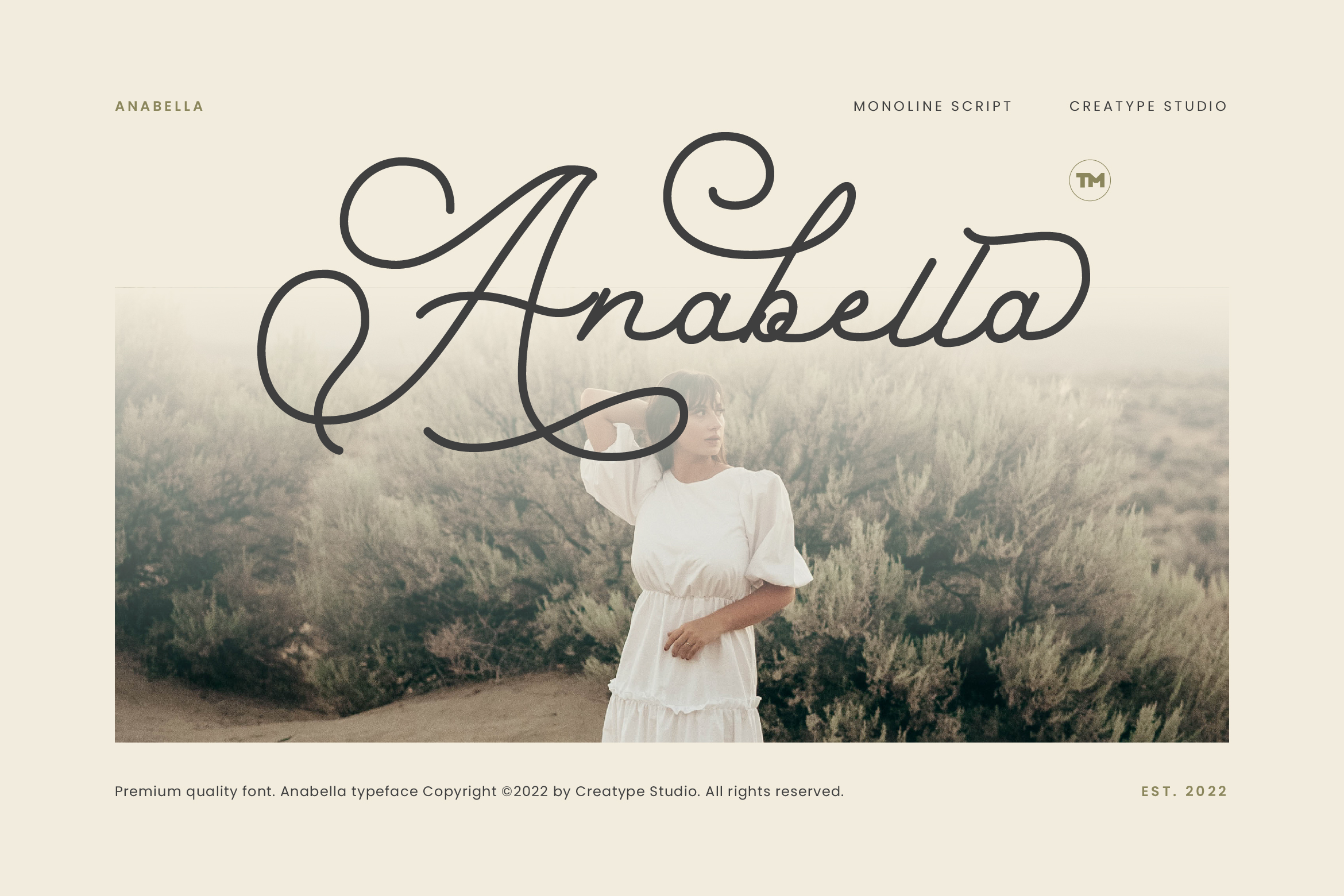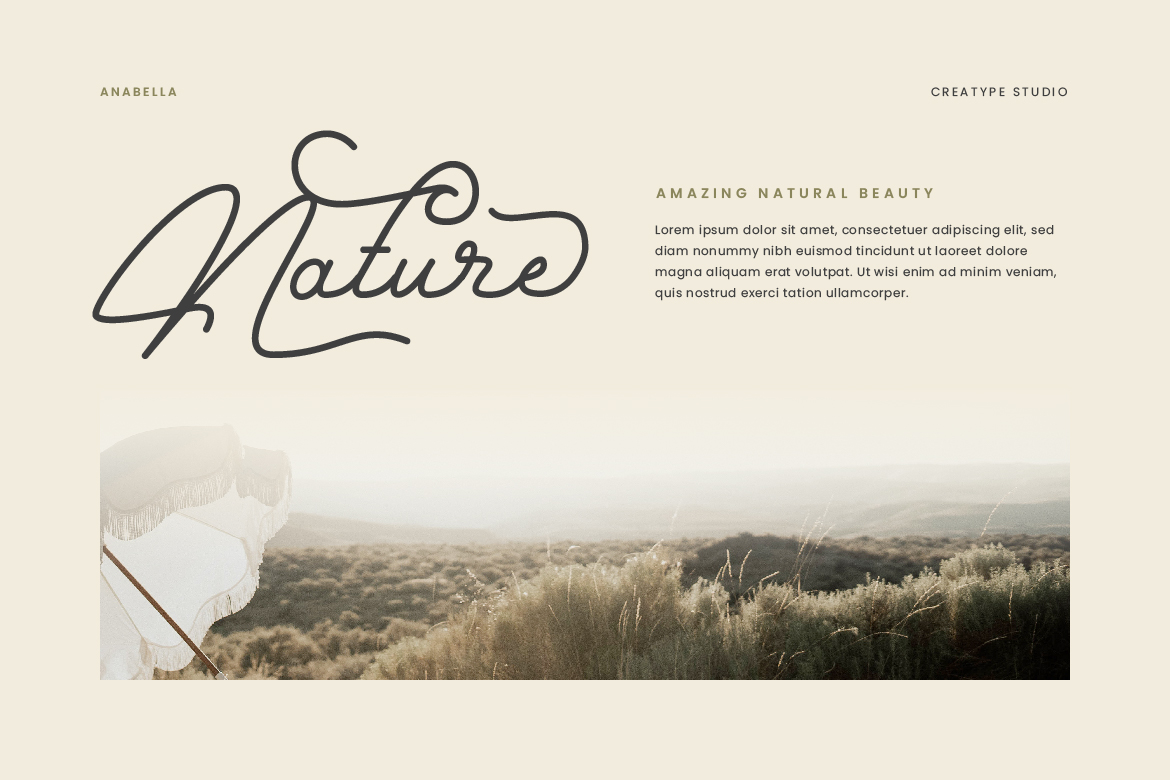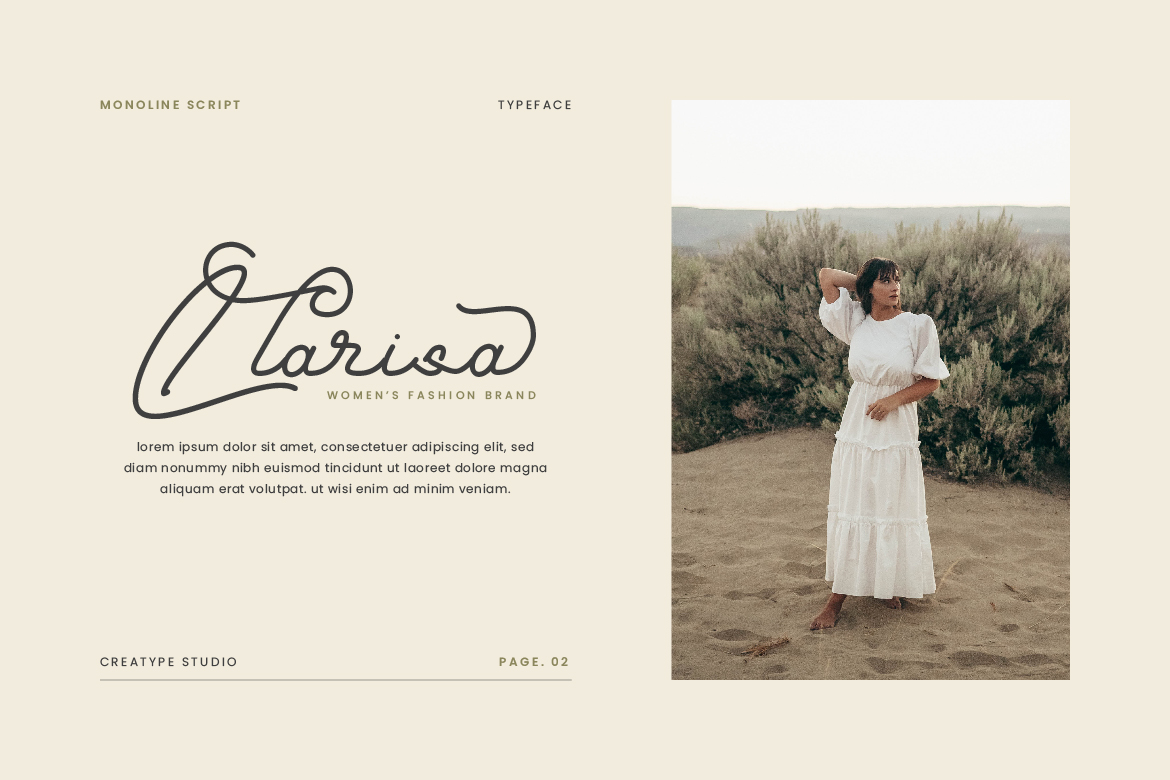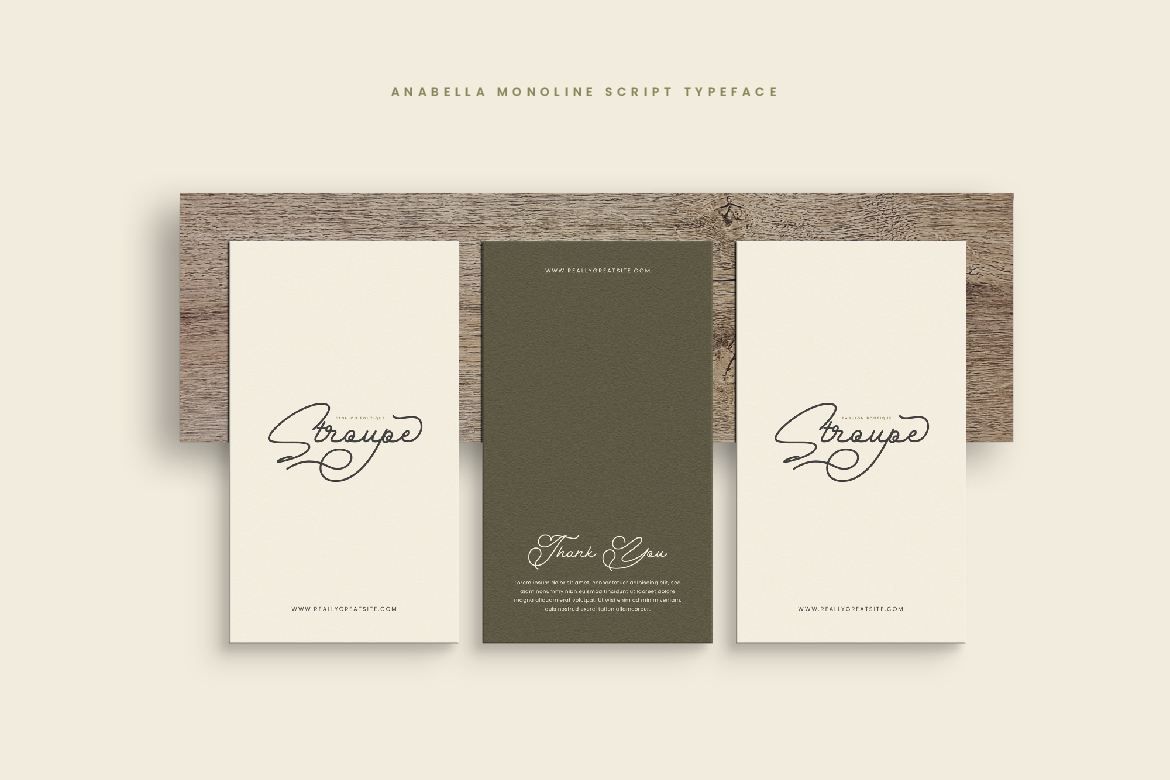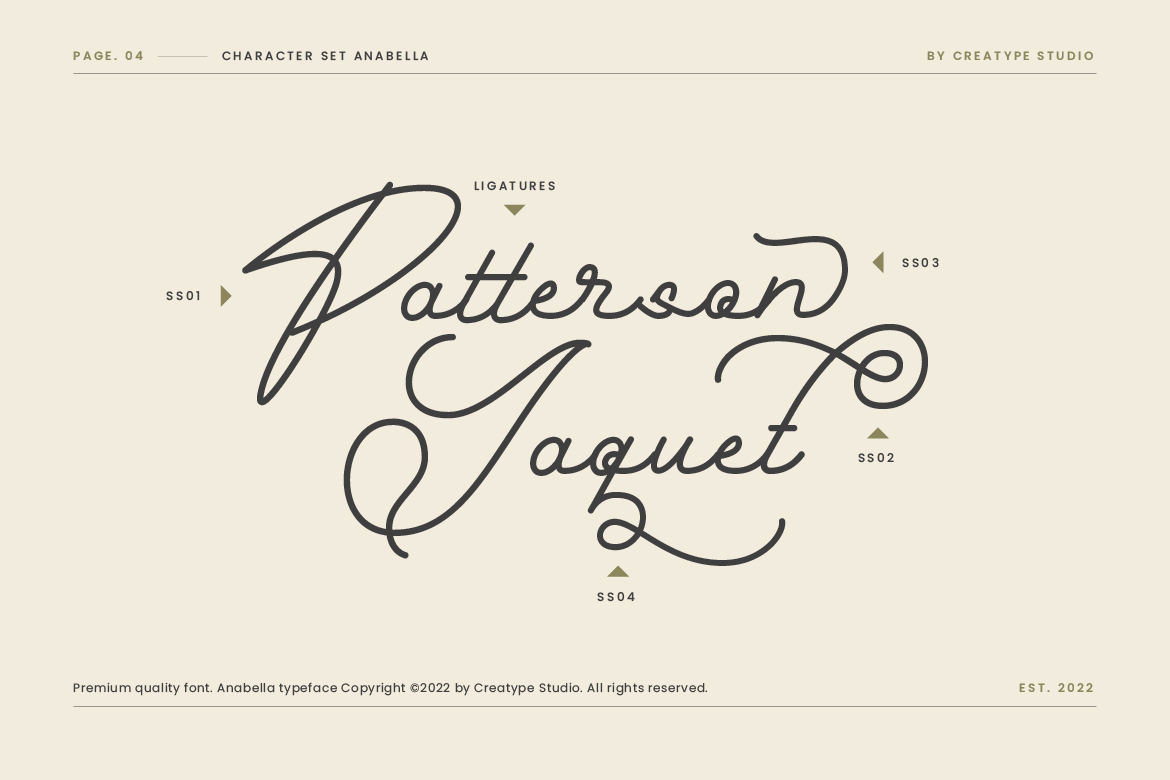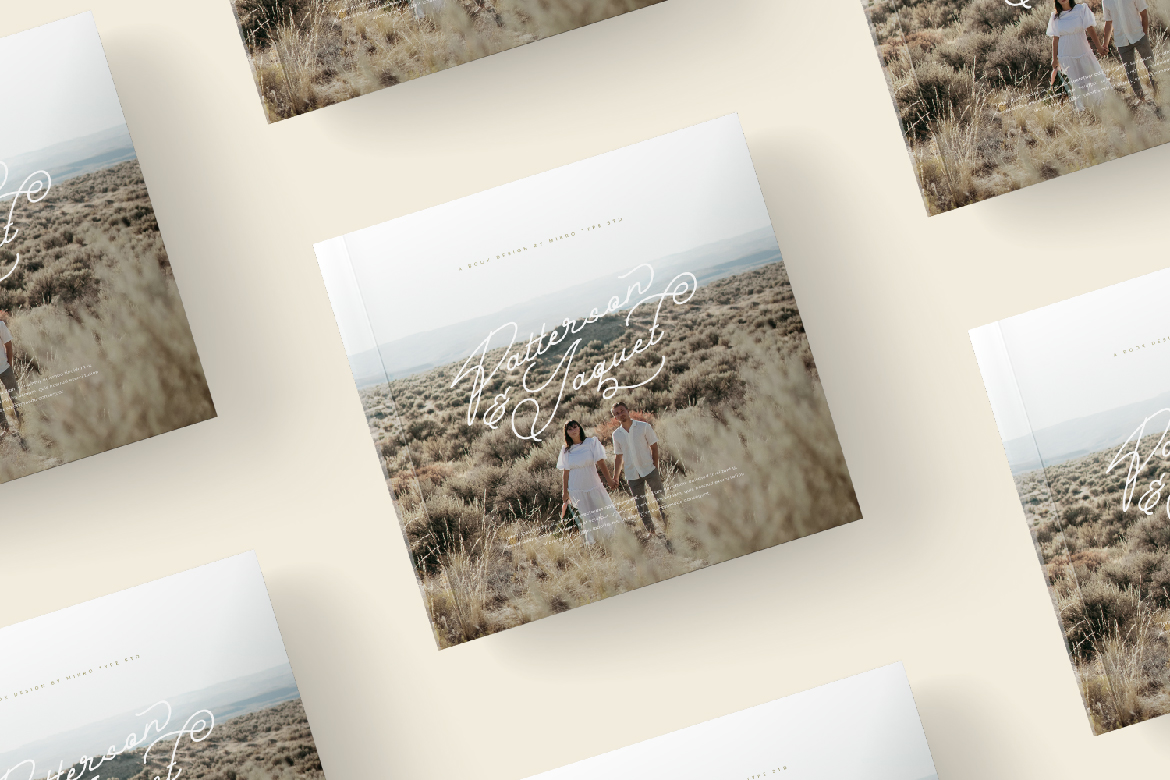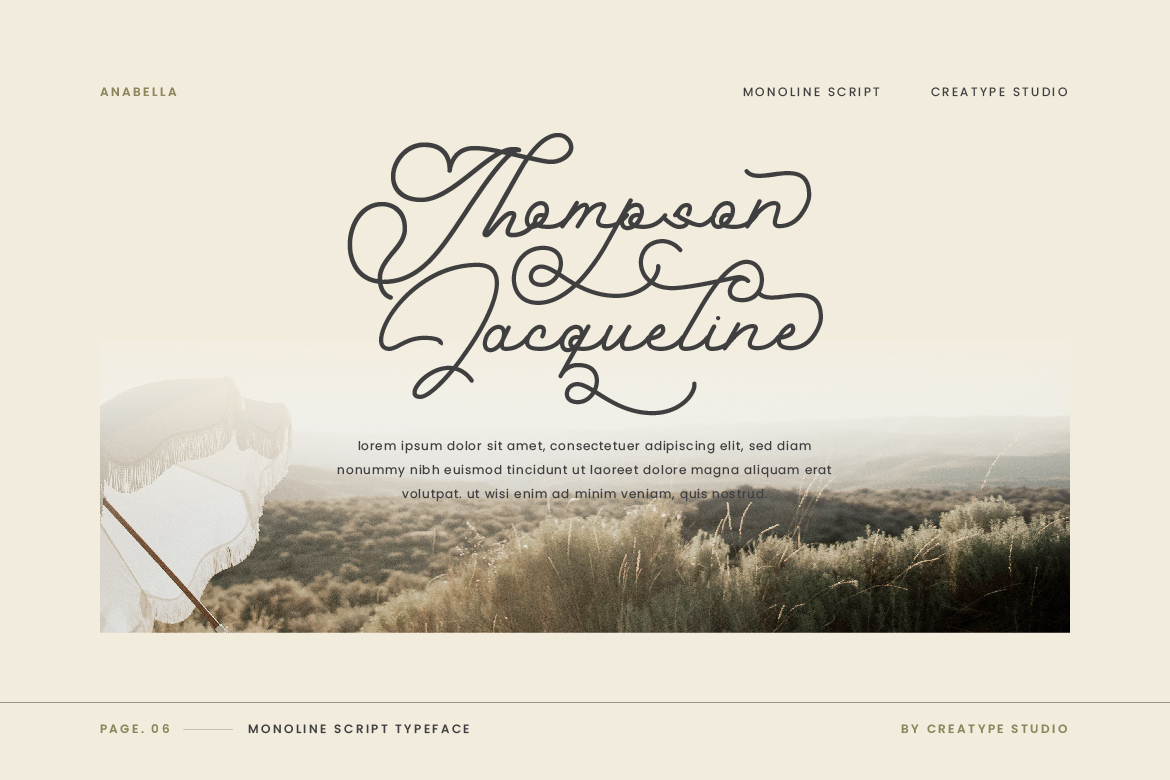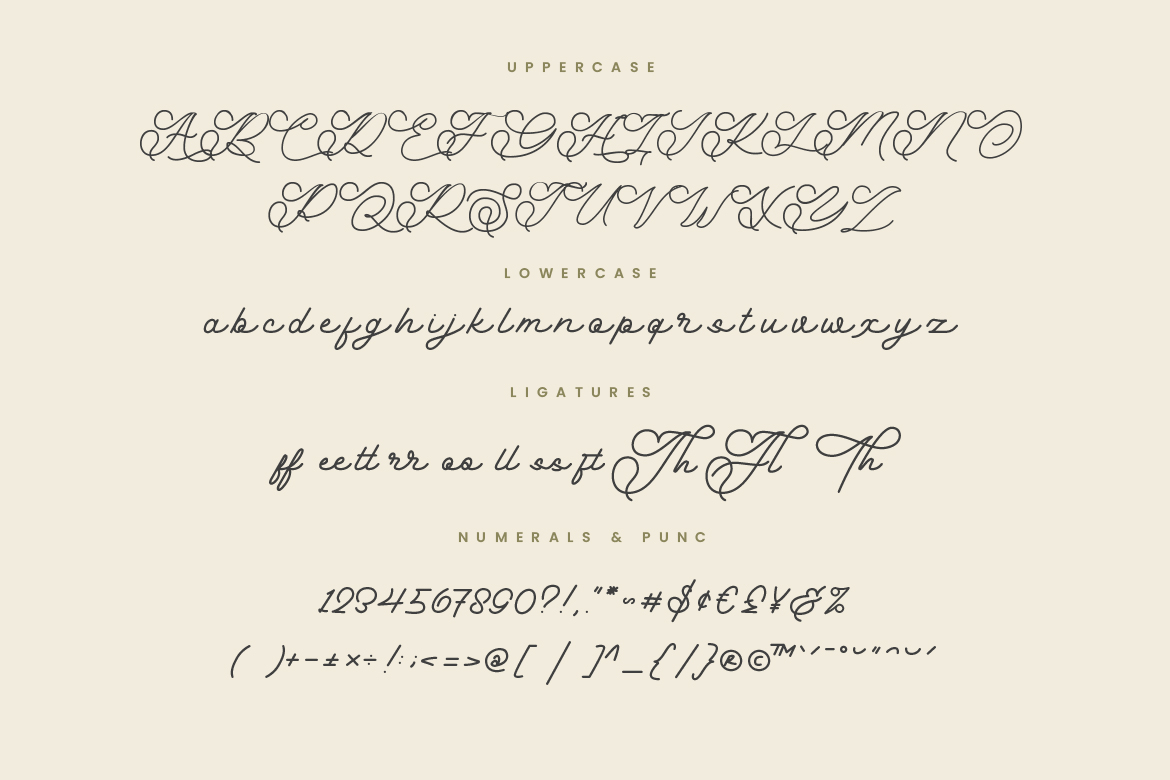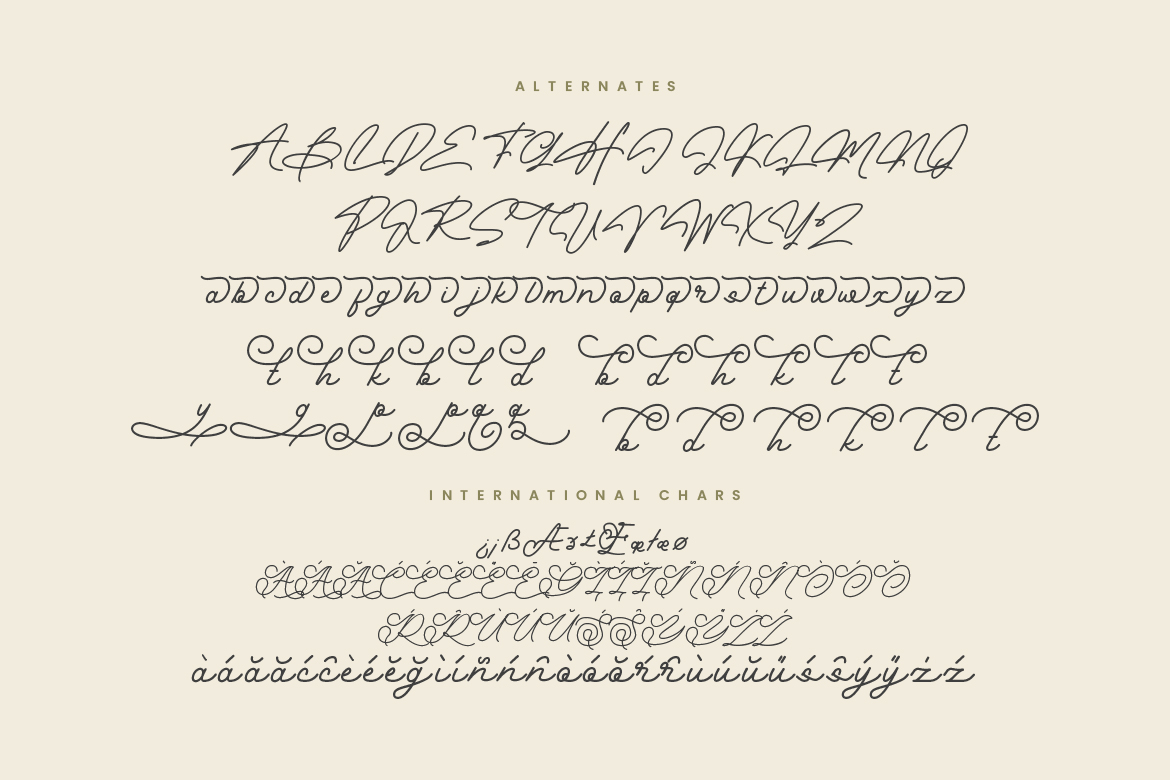
Anabella Monoline Script
A calm, gorgeous, and alluring look, that’s what Anabella is. This look has been made into a typeface by Creatype. This monoline script based is perfect for your brands, logo, and more.
Anabella is perfect for branding projects, logo, wedding designs, social media posts, advertisements, product packaging, product designs, label, photography, watermark, invitation, stationery and any projects that need handwriting taste.